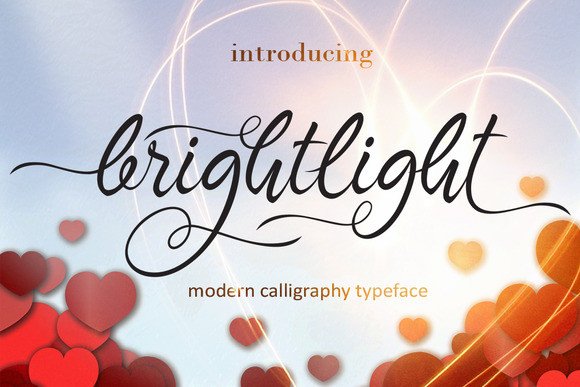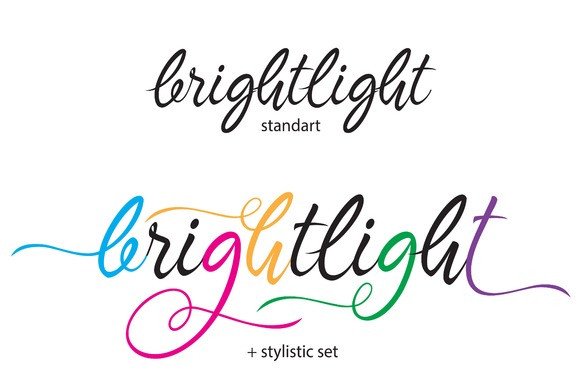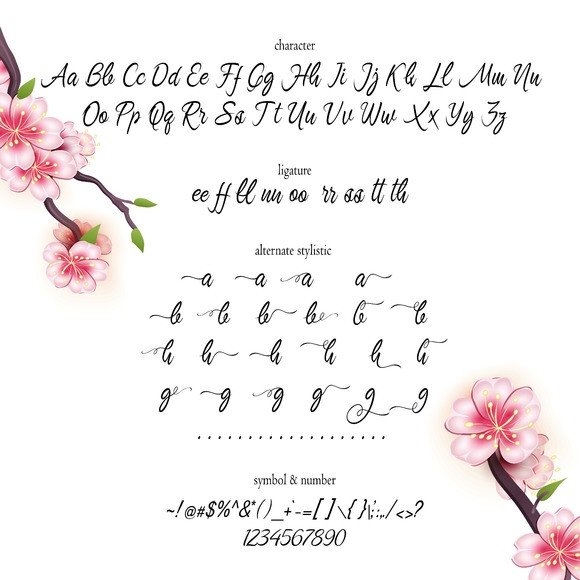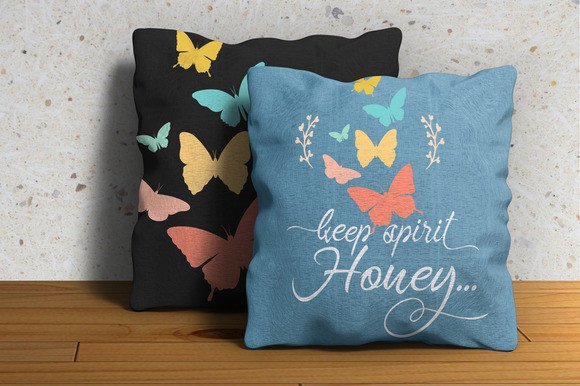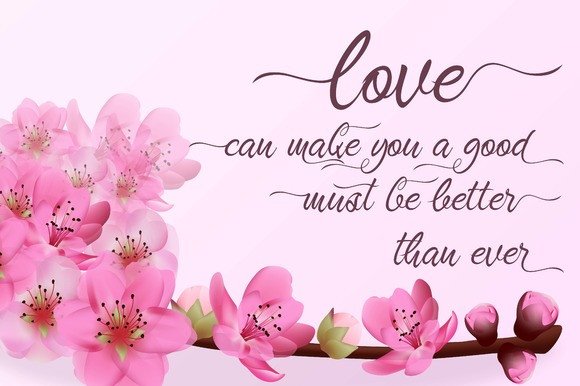
About Brightlight Font
Brightlight is a beautiful handwritten font with clear smooth lines. Because of itβs elegance, Brightlight is perfectly suitable for wedding invites, thank you notes and other decorations that need a formal touch.